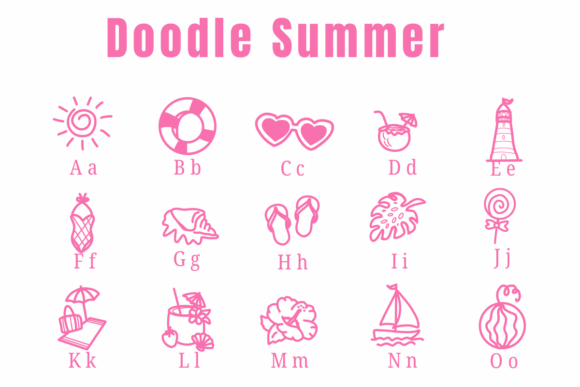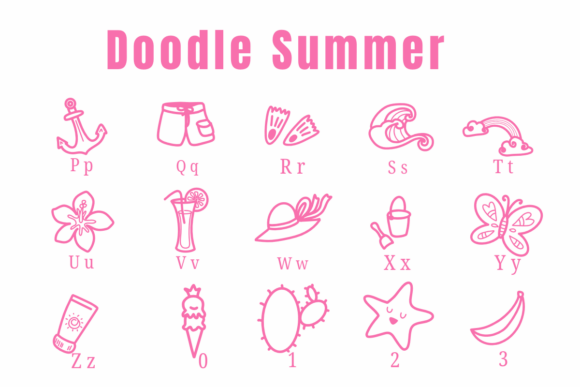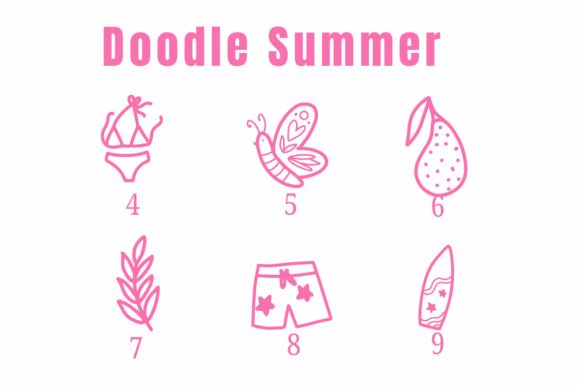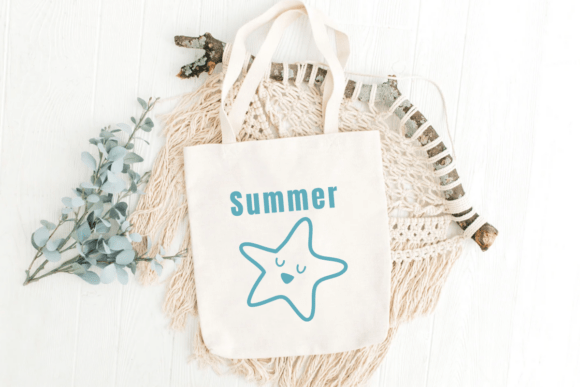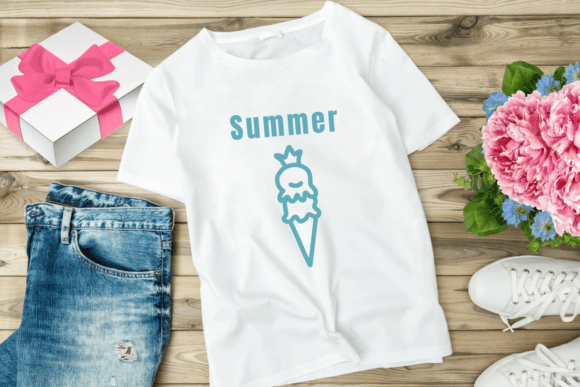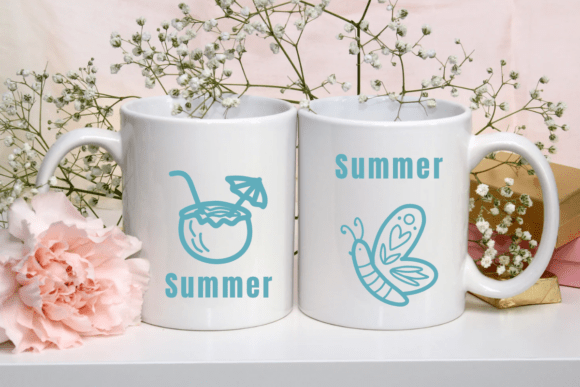
Introduction to Doodle Summer Font
Do you remember the feeling of excitement and joy when you’re brainstorming ideas for a creative project? The thrill of seeing your imagination come to life, the rush of inspiration, and the satisfaction of bringing a concept to reality. For many designers, this feeling is a regular occurrence, but for others, it’s a rare and precious moment. One way to spark that creative spark is by using a high-quality design resource like the Doodle Summer Font.
This sketched-style dingbats font is perfect for adding a personal touch to your projects. With its transparent background and playful aesthetic, it’s easy to see why designers are drawn to it. Whether you’re working on a wedding invitation, a DIY craft, or a logo design, the Doodle Summer Font is a valuable addition to your toolkit. And the best part? It’s available for free download, making it accessible to designers of all levels.
By incorporating the Doodle Summer Font into your creative project, you’ll be able to add a unique and eye-catching element that sets your work apart. So why not give it a try and see where it takes your design?
Key Features of Doodle Summer Font
- High-quality, hand-drawn design resource ideal for creative projects
- Unique, whimsical design with a transparent background for easy customization
- Perfect for use in digital art, web design, and print materials
- Great for adding a playful touch to your designs, posters, and social media graphics
Honest Review: Doodle Summer Font
I recently had the chance to work with the Doodle Summer Font, and I must say, it’s been a game-changer for my creative projects. As a designer, I’m always on the lookout for high-quality design resources that can elevate my work. The Doodle Summer Font definitely delivers.
- ✨ Unique and playful style that’s perfect for summer-themed projects
- ✨ High-quality font that’s smooth and easy to read
- ⚠️ Limited character set, which may not be ideal for longer text-based projects
- ⚠️ No transparent background option, which can make it difficult to use with certain design elements
Overall, I’m impressed with the Doodle Summer Font. It’s a great design resource for anyone looking to add a playful touch to their creative project. While it may have some limitations, the benefits far outweigh the drawbacks. I’d definitely recommend it to fellow designers looking for a unique and high-quality font.
Tips for Getting the Most Out of Doodle Summer Font
Use the Doodle Summer Font in conjunction with other playful design elements to create a cohesive look. Experiment with different font sizes and colors to achieve the desired effect. This font is ideal for creating eye-catching graphics and designs for social media, marketing materials, and other creative projects.
The Doodle Summer Font is perfect for a variety of creative projects, including social media graphics, marketing materials, and event invitations. Its high-quality design and transparent background make it an ideal choice for designers looking for a unique and visually appealing font.